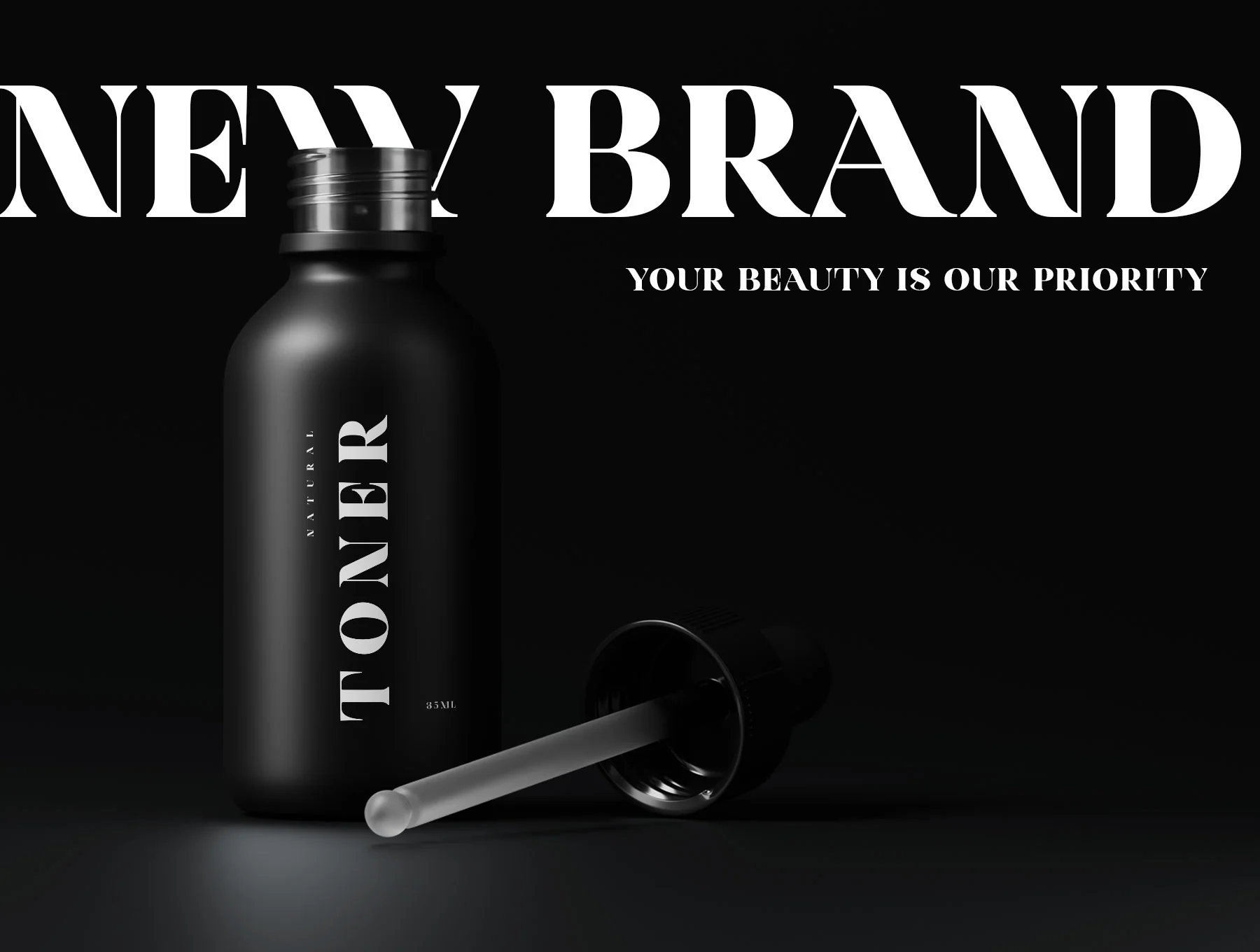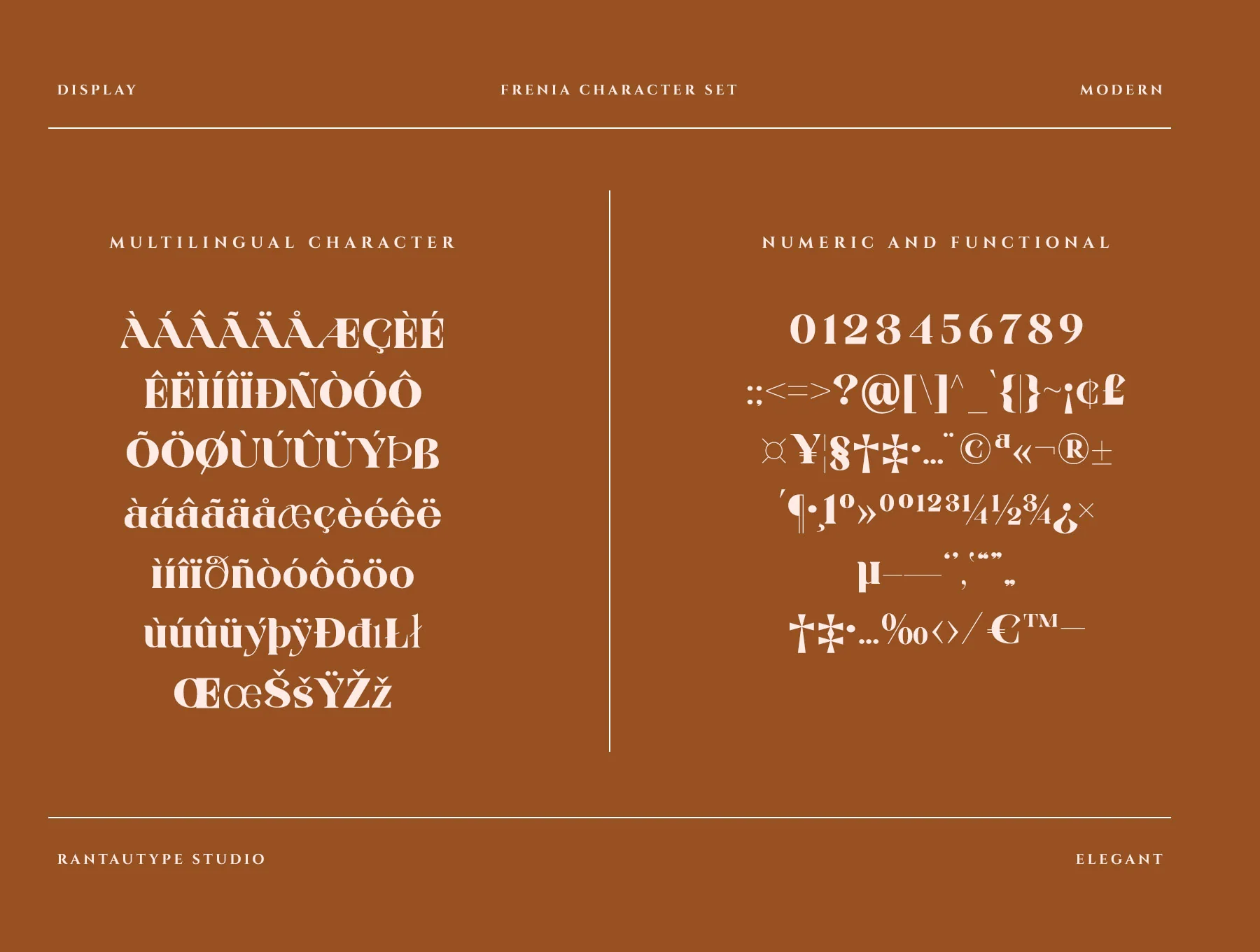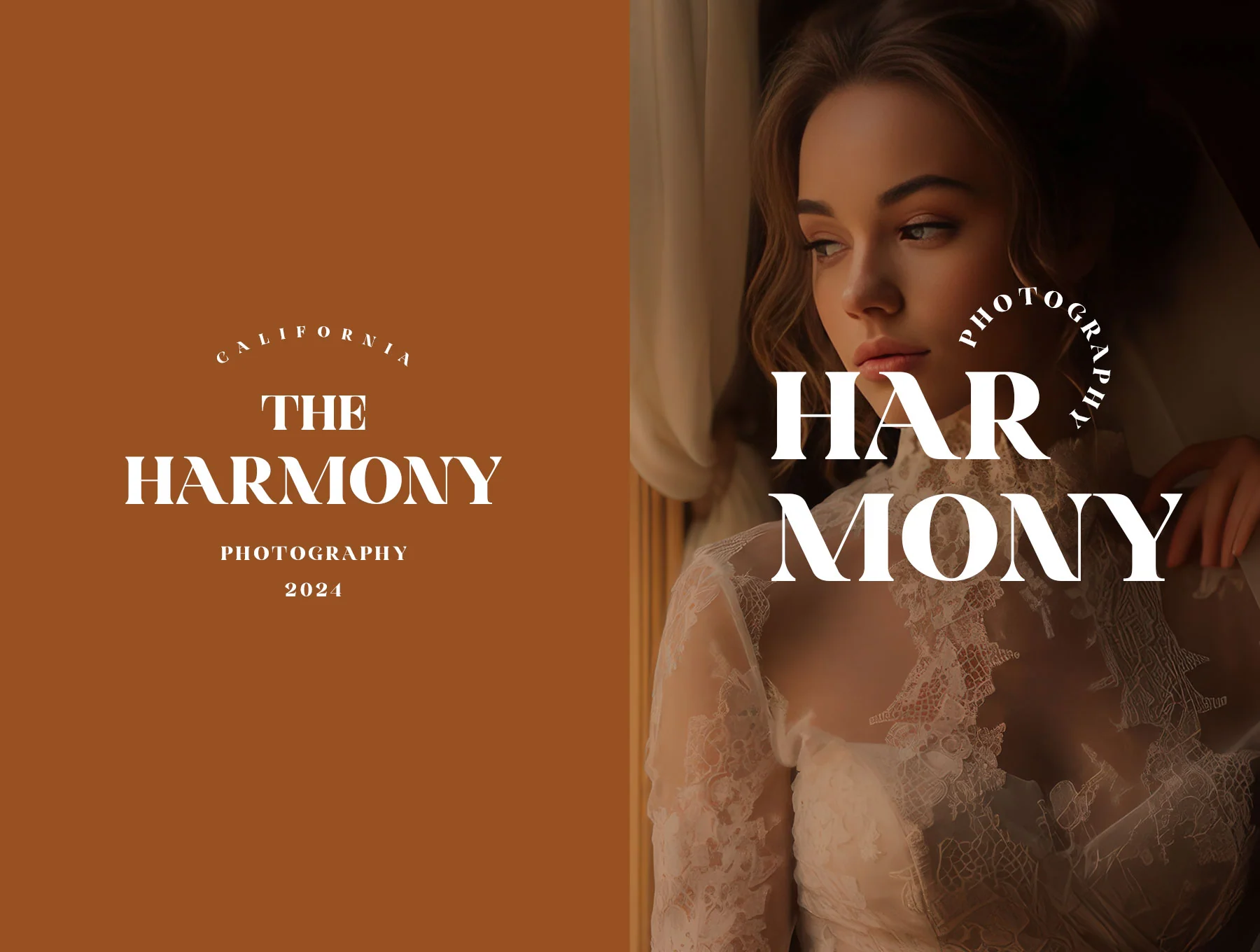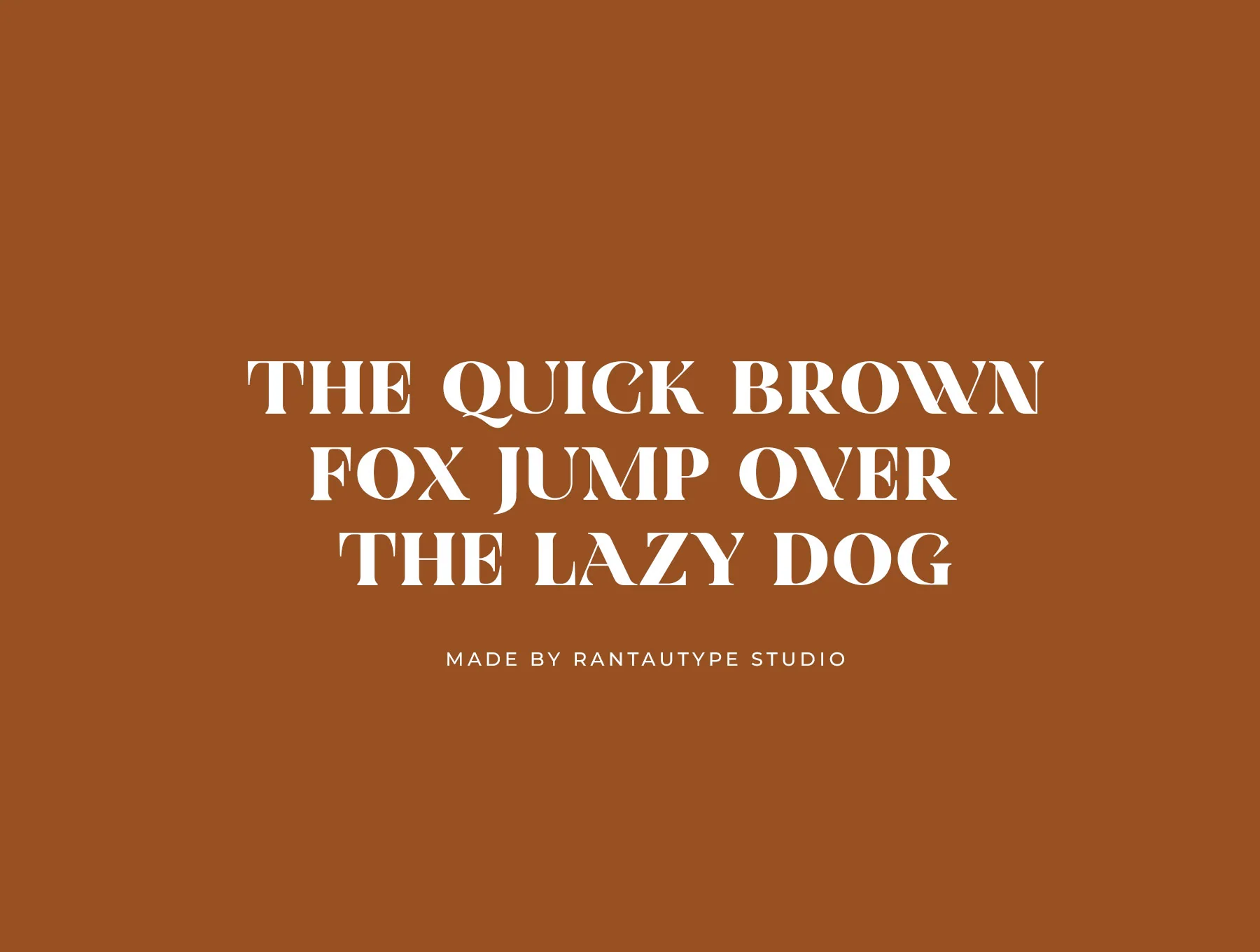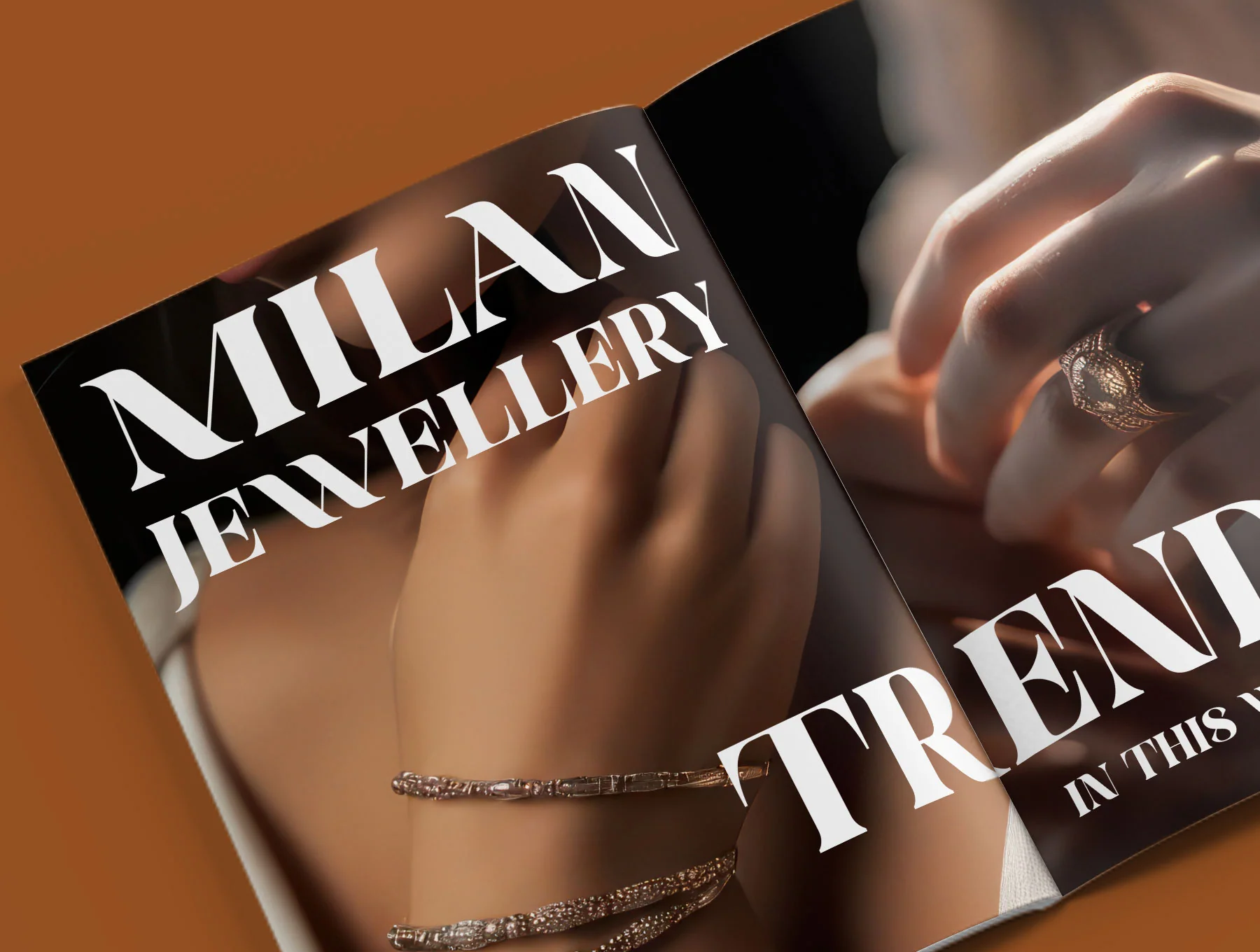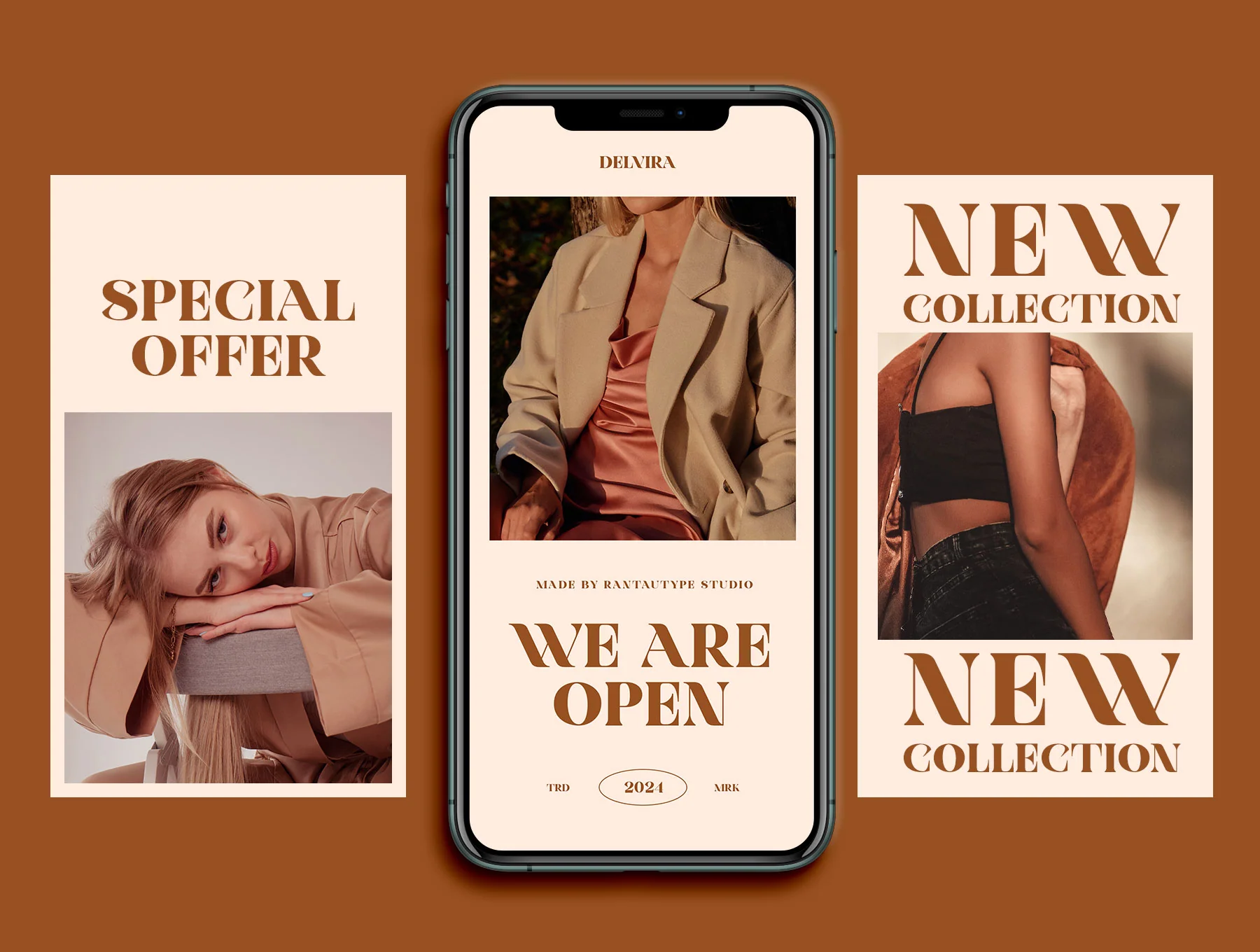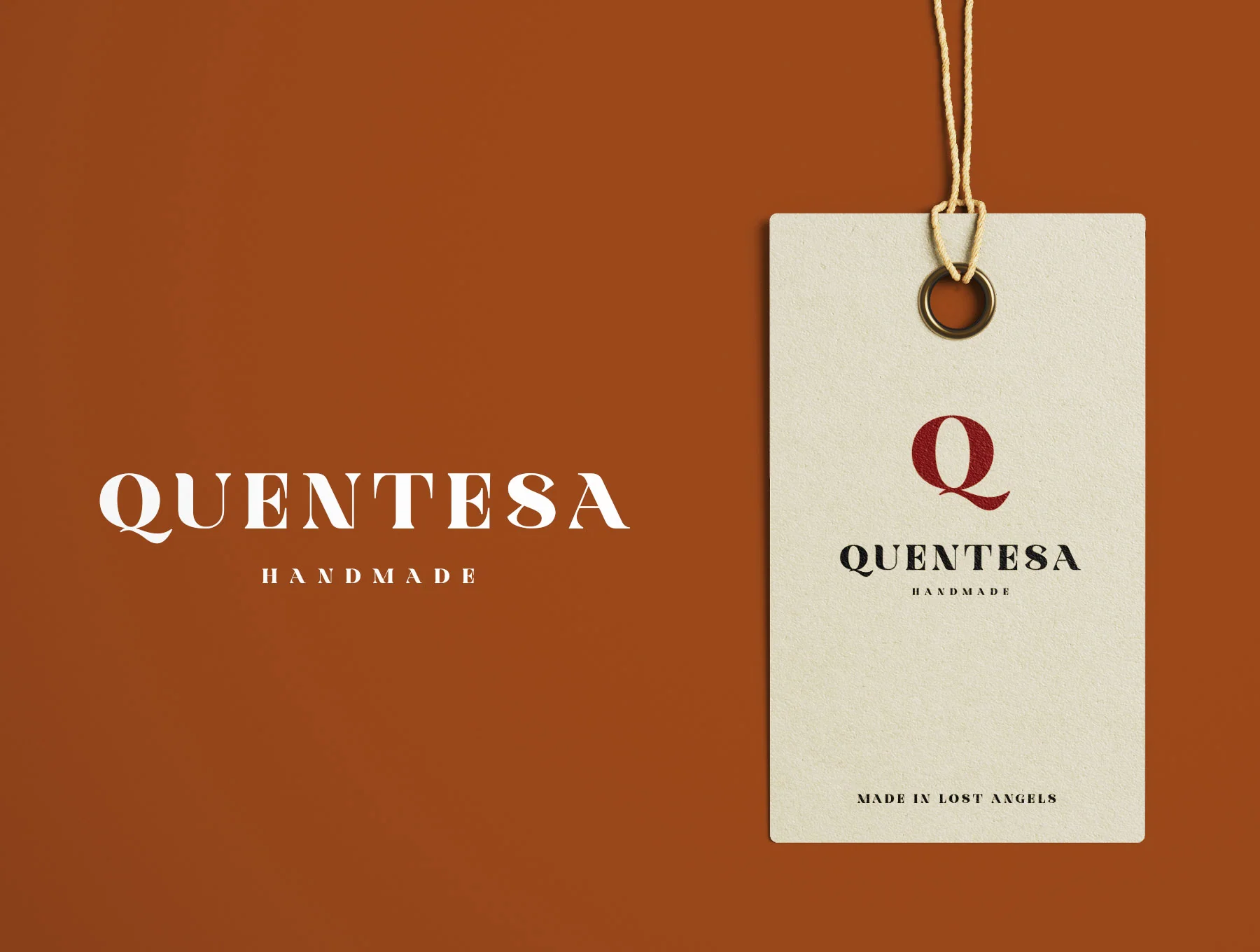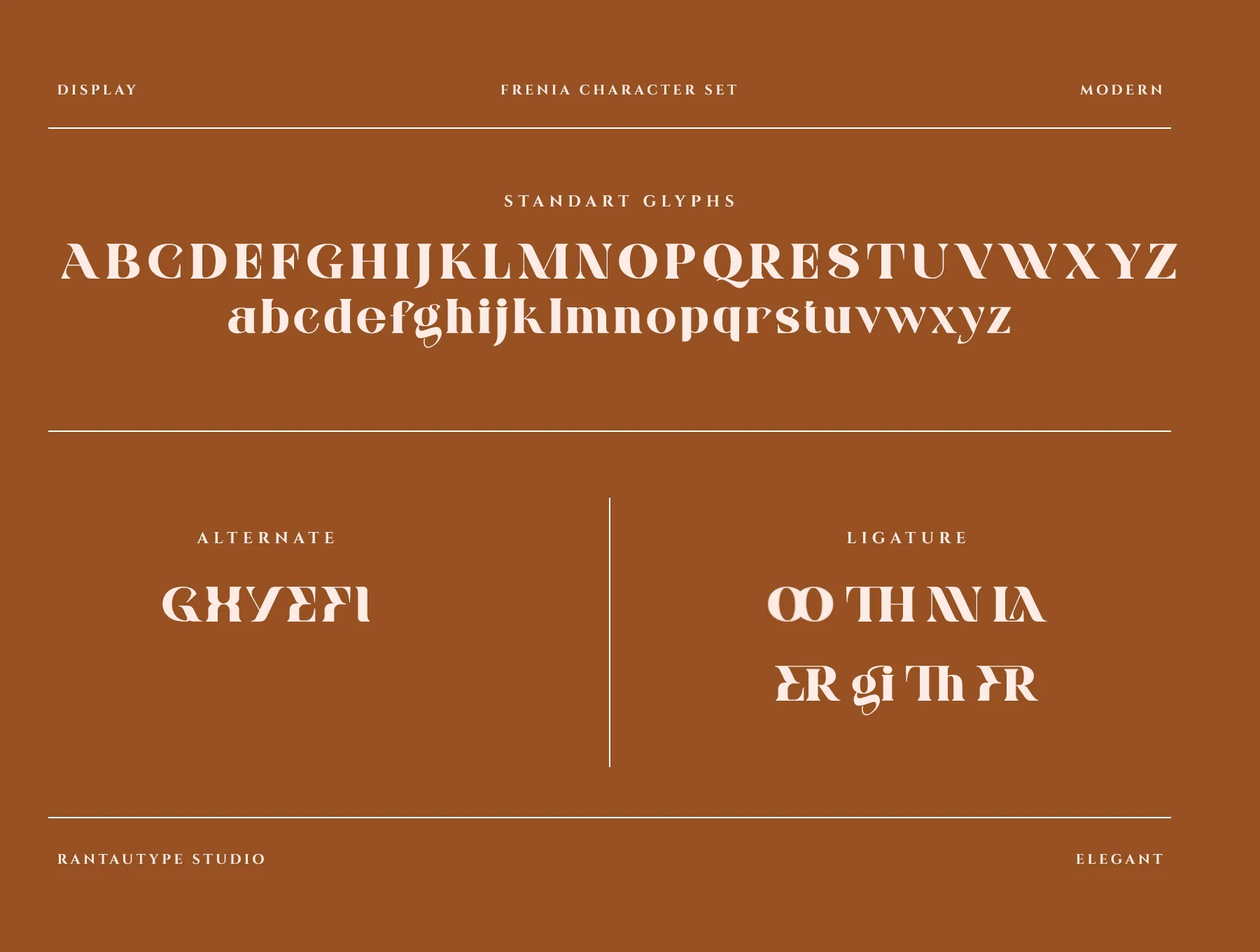
Frenia Modern Serif Typeface
Frenia Contemporary Serif Font
Alternates with ligatures
Frenia is a contemporary bold display font with an elegant, luxury-inspired style. Ideal for logos, ads, photo marks, stationery, branding, magazines, invitations, labels, products, and business designs. Includes OTF, TTF, WOFF, standard glyphs, numerals, alternates, ligatures, multilingual support, PC/Mac compatibility, and easy use in Adobe apps and Word.